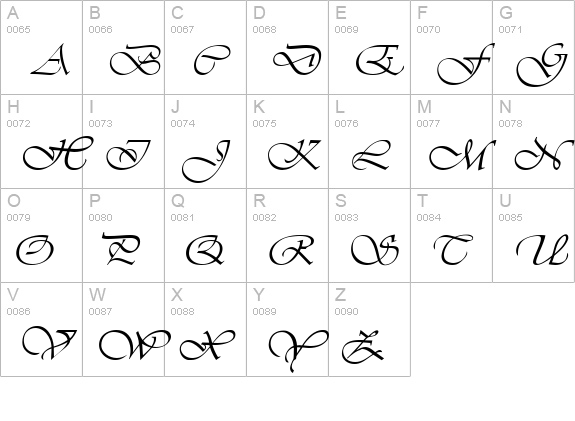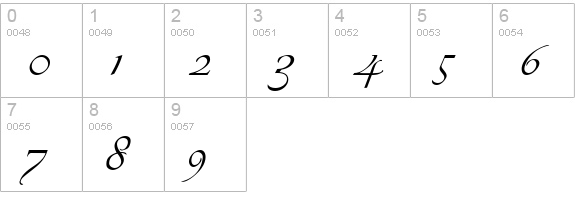
Vivienne Font Details
Introducing Vivienne, a captivating and elegant font that effortlessly captures attention with its timeless beauty. With its delicate curves and graceful letterforms, Vivienne exudes a sense of sophistication and refinement, making it the perfect choice for any design project that seeks to convey a touch of class. This stunning font is not only visually stunning but also incredibly versatile. Whether you're designing a logo, creating stunning invitations, or crafting eye-catching headlines, Vivienne will elevate your work to new heights. Its well-balanced proportions and exquisite details ensure legibility and readability, ensuring that your message is conveyed with utmost clarity. But what truly sets Vivienne apart is its accessibility. This extraordinary font is freely available to download at FontsMarket.com, offering you the opportunity to add a touch of elegance to your designs without breaking the bank. Whether you're a professional designer or a passionate hobbyist, Vivienne allows you to explore your creativity without any limitations. With its wide range of weights and styles, Vivienne offers endless possibilities for customization. Whether you prefer the bold and impactful look of Vivienne Black or the delicate and airy feel of Vivienne Light, you can easily find the perfect variation to suit your unique vision. Vivienne is a font that transcends trends and time, effortlessly blending modern aesthetics with classic charm. Its timeless appeal ensures that it will remain a beloved choice for designers and typographers alike for years to come. So don't miss out on this incredible opportunity to enhance your designs with the enchanting allure of Vivienne - download it for free at FontsMarket.com and let your creativity soar.